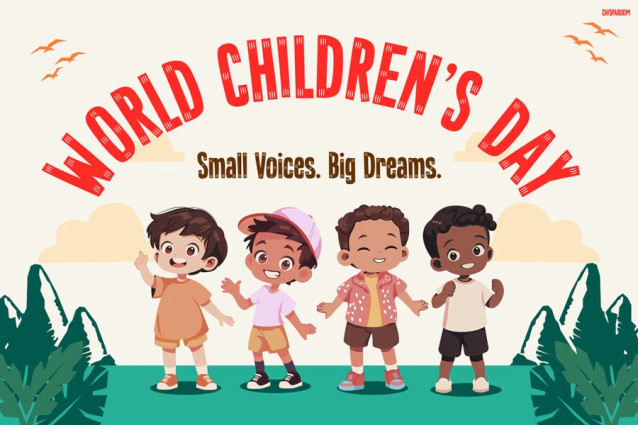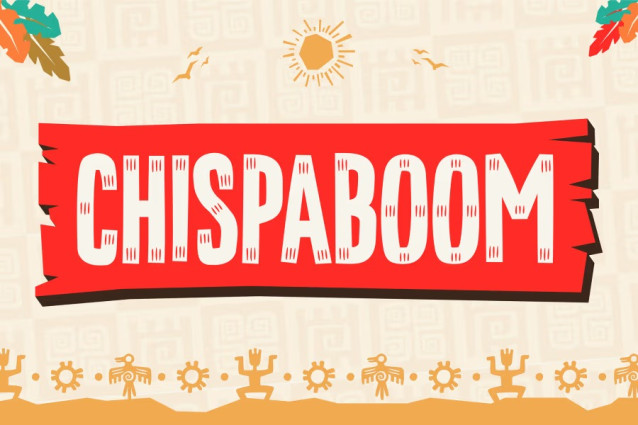
Chispaboom Font
Chispaboom Font is where rhythm meets imagination and every letter feels alive with movement. This playful, adventurous typeface captures the essence of childhood—bold, curious, and full of laughter. Inspired by the vivid energy of folk festivals, sunny adventures, and world cultures, it combines artistic flair with functional clarity. As a result, your words don’t just sit on a page—they dance, sing, and tell stories.
Unlike ordinary kids’ fonts, Kids Font CHISPABOOM stands out because of its lively structure and handcrafted rhythm. Each curve, angle, and space feels intentional yet spontaneous, giving every letter a joyful balance between fun and readability. Moreover, its bold texture and dynamic flow create a sense of celebration that instantly attracts attention. Whether you’re designing posters, packaging, or educational materials, this font adds a spark of creativity and joy that keeps every eye engaged.
In addition, the color-friendly shapes and generous spacing make it adaptable across both digital and print designs. So, whether you’re building playful branding for a kids’ snack line or creating cheerful classroom visuals, CHISPABOOM delivers warmth, rhythm, and personality with every word.
Perfect For
Kids Font CHISPABOOM is perfect for designers, educators, illustrators, and marketers who want their projects to feel alive. For instance, it works beautifully in kids’ festivals, adventure book covers, and cultural celebration posters. It’s also great for World Children’s Day campaigns, Folk Festival events, or Aloha-themed invitations.
Furthermore, teachers can use it to design interactive materials that spark excitement in the classroom. Meanwhile, creators in children’s entertainment or education can use it for playful branding, digital stories, or product packaging that celebrates diversity and happiness. Since it mixes creativity with cultural rhythm, it’s ideal for anyone who believes that design should tell stories that move.
Bring the Rhythm to Your Words
Ultimately, Kids Font CHISPABOOM invites you to create with joy and rhythm. Each letter breathes energy, and every design becomes a celebration of imagination. So, don’t just write—make your message move, dance, and inspire! Bring your ideas to life with CHISPABOOM and let every project echo the sound of laughter and creativity.